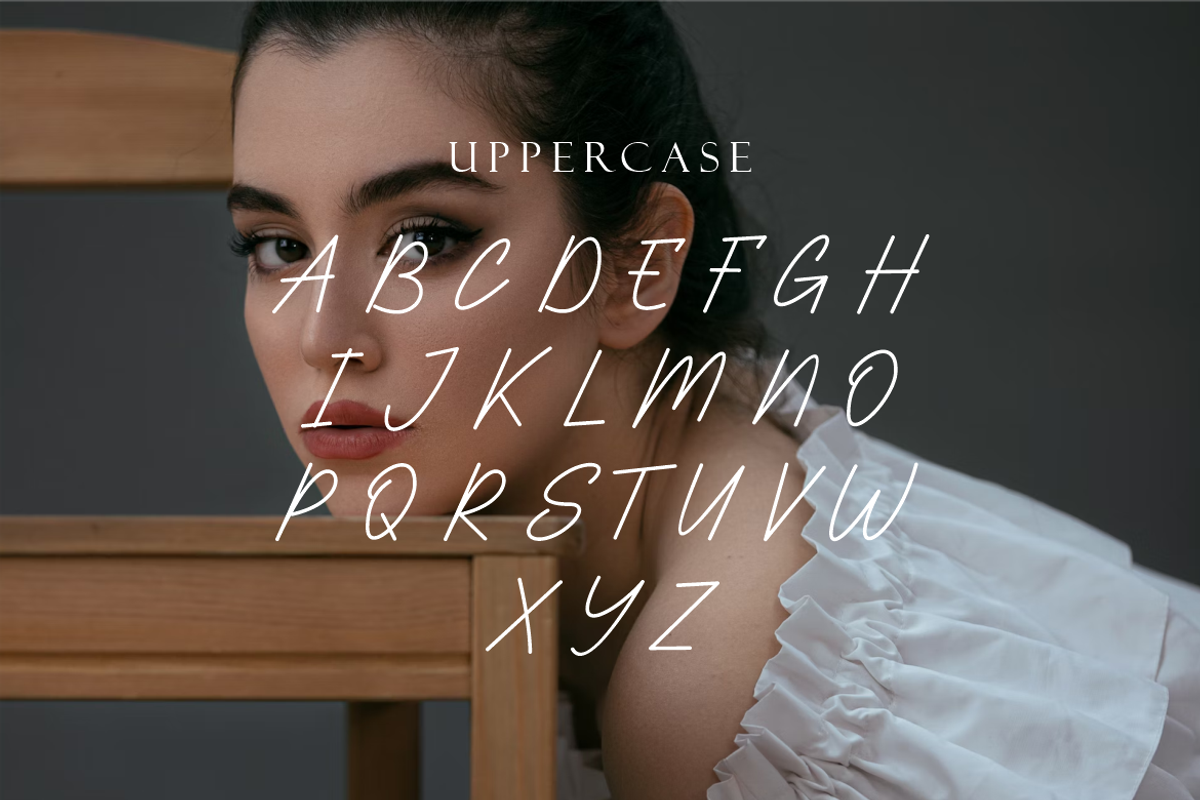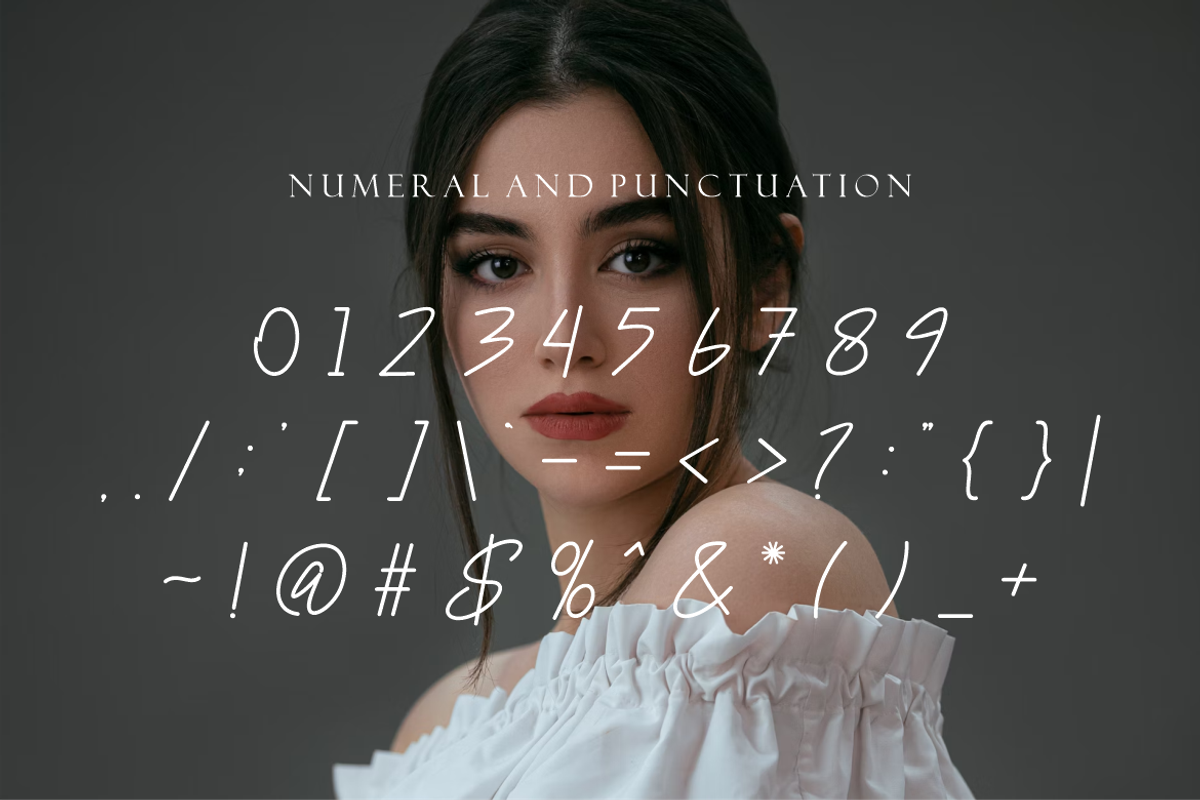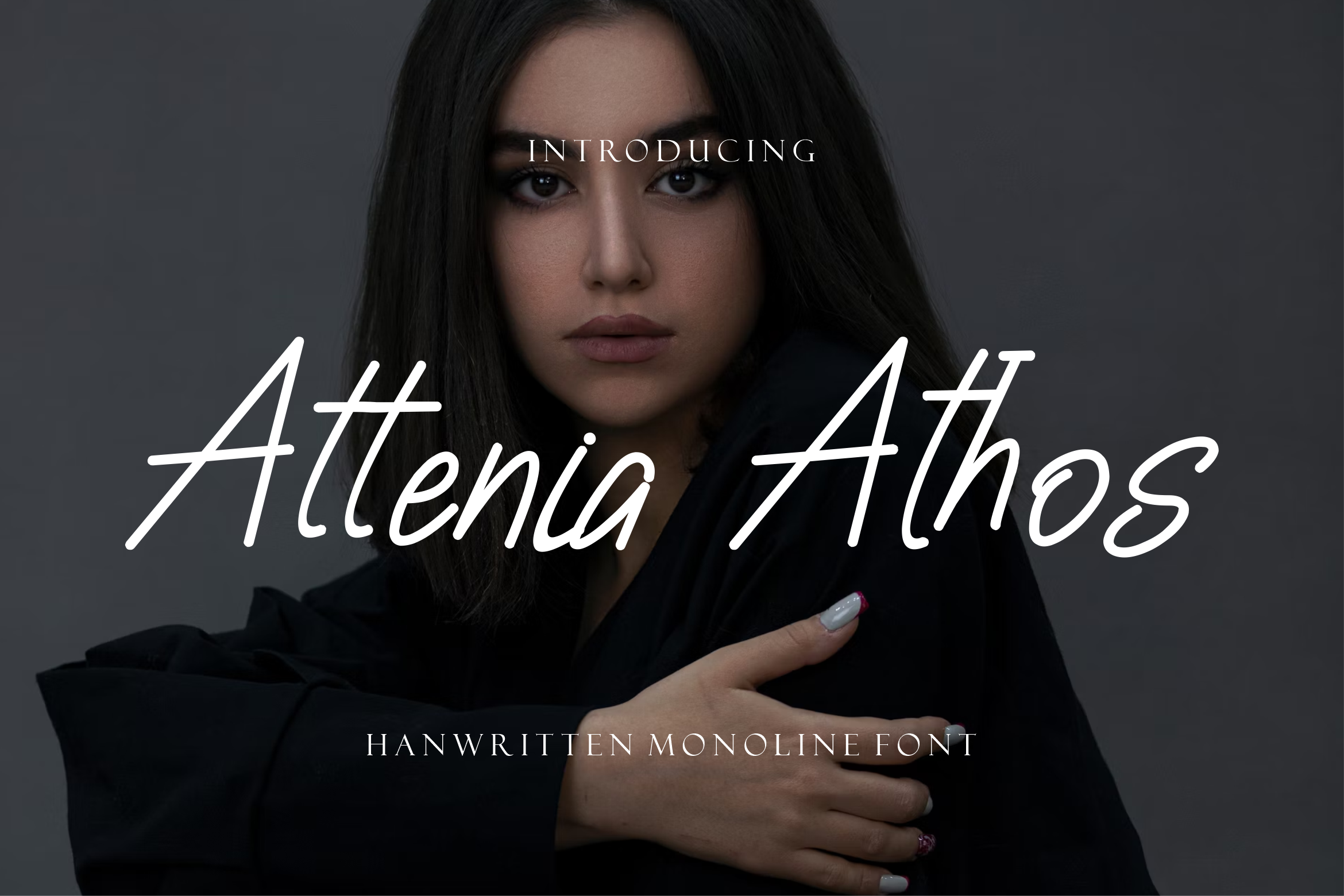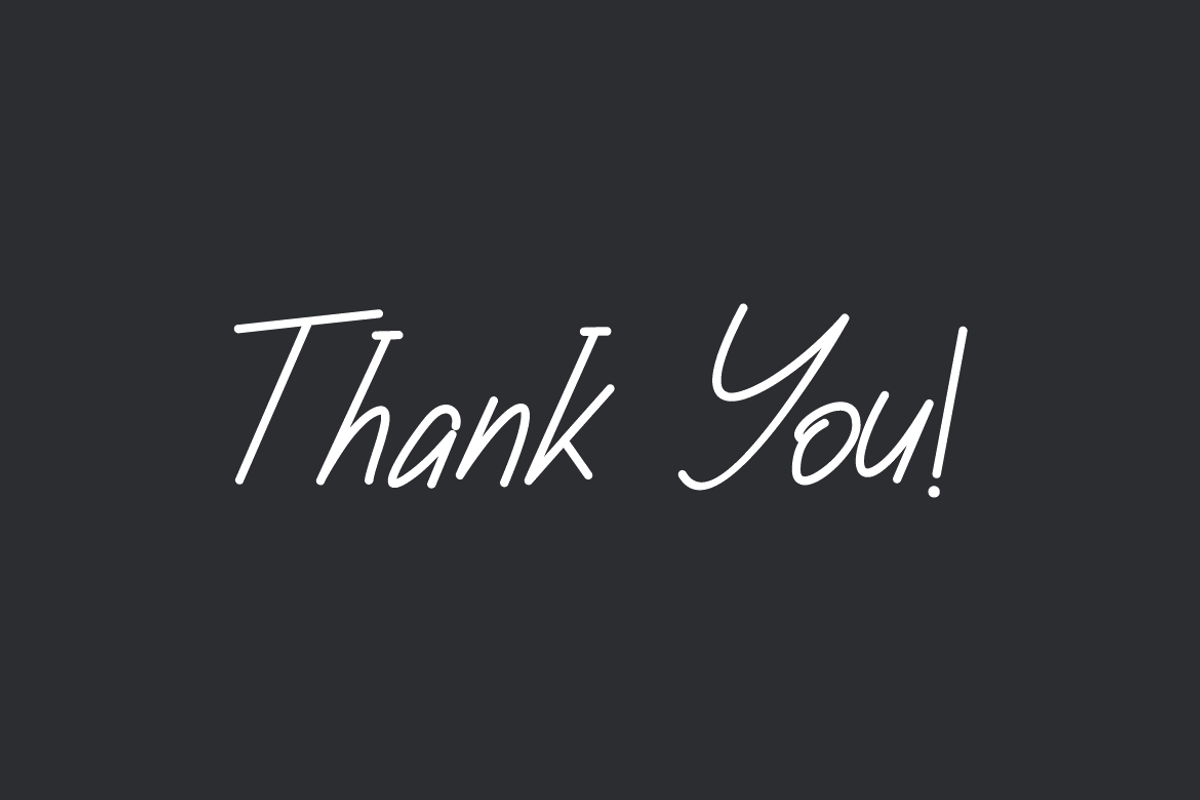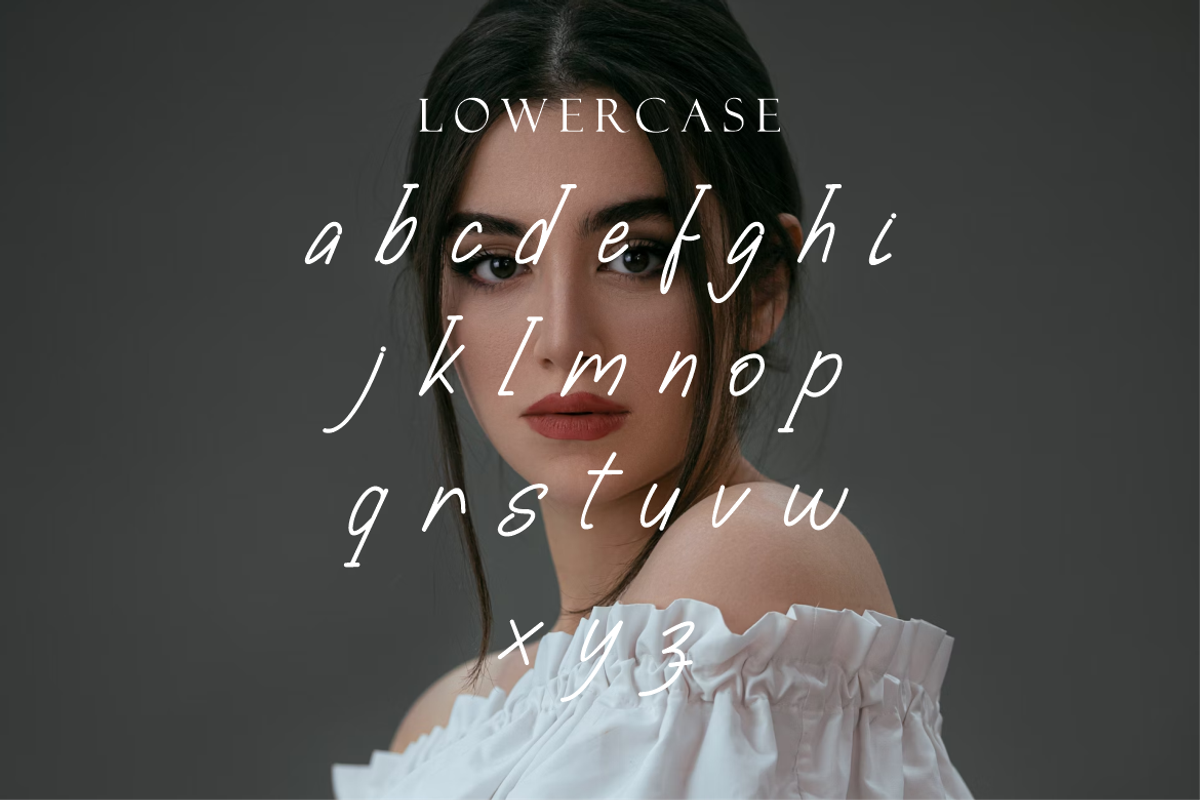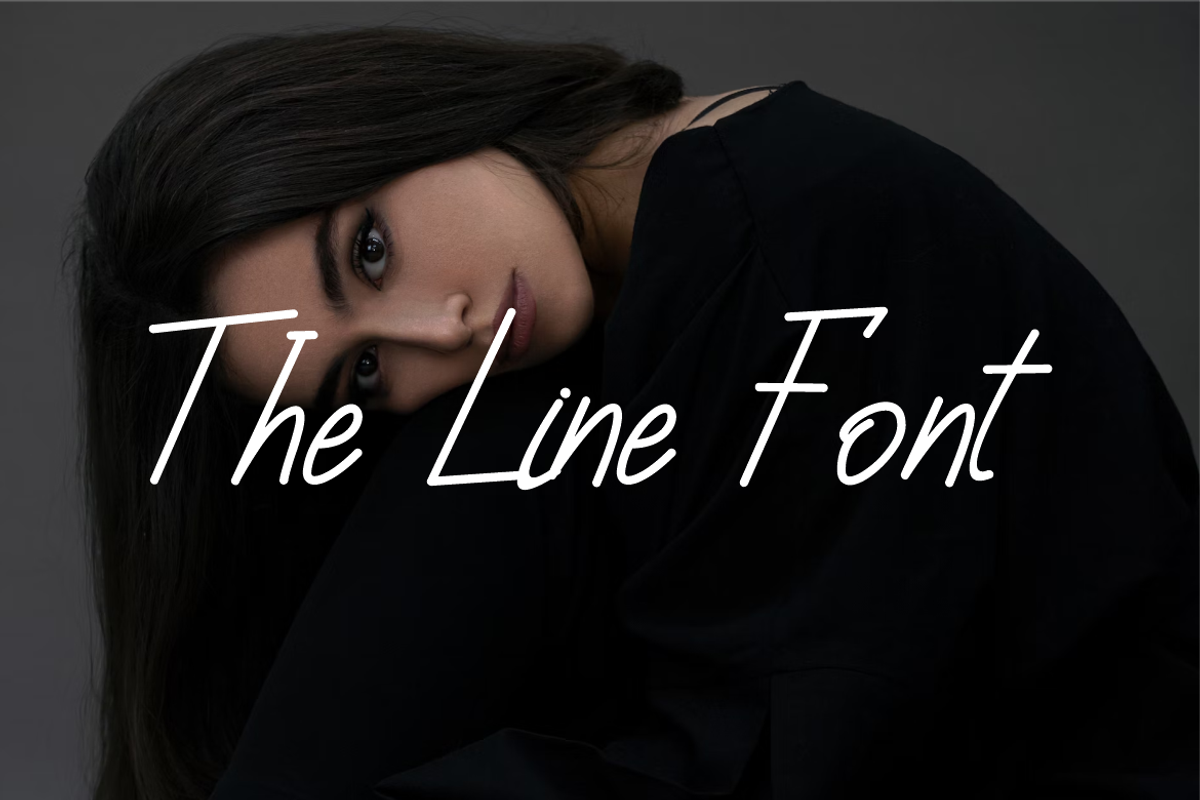
Attenia Athos Handwritten Font.
Attenia Athos Handwritten Font.– related to travel, history & culture in the present/modern way,lifestyle designs such as logos, title, magazine, and more.